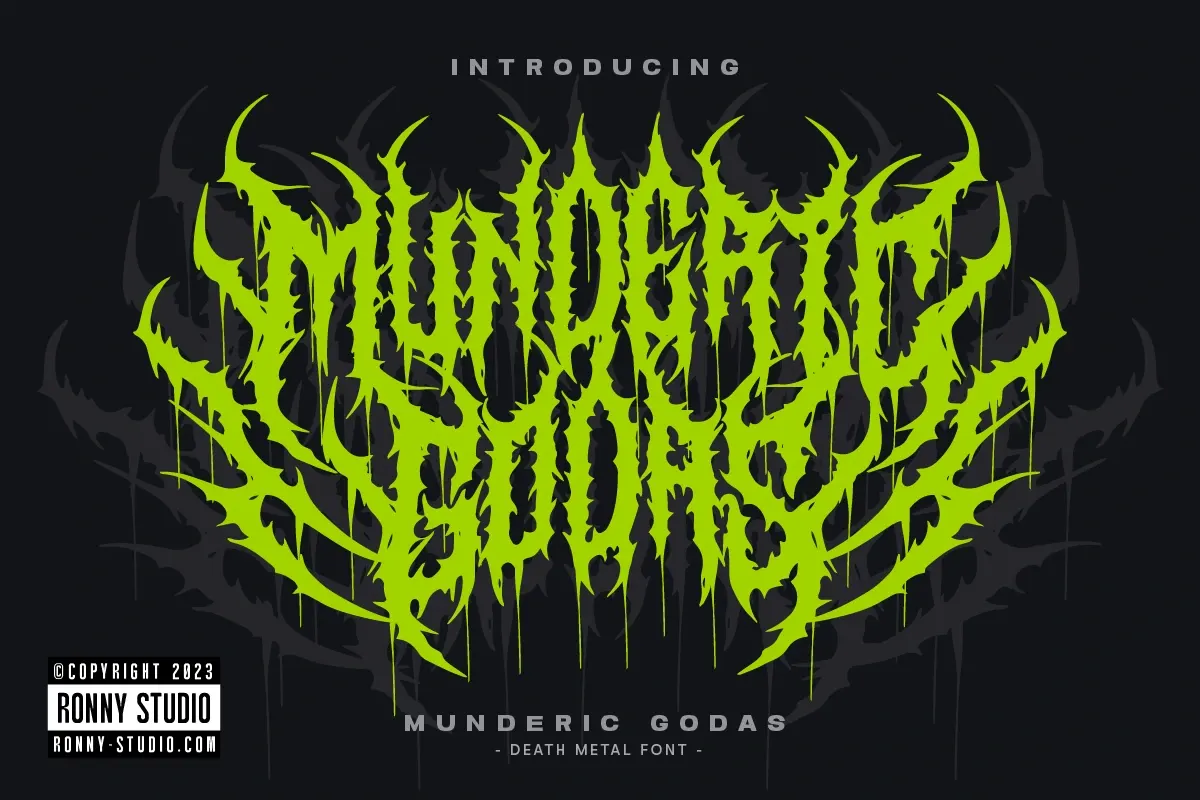
This brutal font is perfect for death metal band logos, extreme music merchandise, concert posters, album artwork, metal festival graphics, horror movie titles, underground music promotions, and aggressive branding projects. Its menacing character makes it ideal for projects requiring authentic extreme metal aesthetics and intimidating visual impact.
Munderic Godas Death Metal Font is exciting because it captures the raw brutality and uncompromising intensity of death metal culture with letterforms that appear forged in darkness and sharpened by aggression. The font features jagged edges, dramatic spikes, and aggressive angles that mirror the crushing riffs and thunderous drums of extreme metal music. Its authentic underground aesthetic ensures immediate recognition within metal communities while commanding respect from the most discerning metalheads.
The Munderic Godas Death Metal Font family typically includes regular and extra bold weights, along with distressed variations and metal-themed decorative elements like spikes, thorns, and demonic ornaments. Many versions feature alternate characters with varying degrees of brutality and special symbols that enhance the extreme metal atmosphere.
Whether you're creating band merchandise, metal festival materials, or underground music promotions, Munderic Godas Death Metal Font Free Download delivers crushing authenticity with professional craftsmanship. This typeface transforms ordinary text into devastating statements that resonate with extreme metal fans who demand genuine brutality in their visual representation. Its uncompromising character adds immediate credibility to brands and projects that celebrate the darkest corners of heavy music culture and the relentless power of death metal tradition.